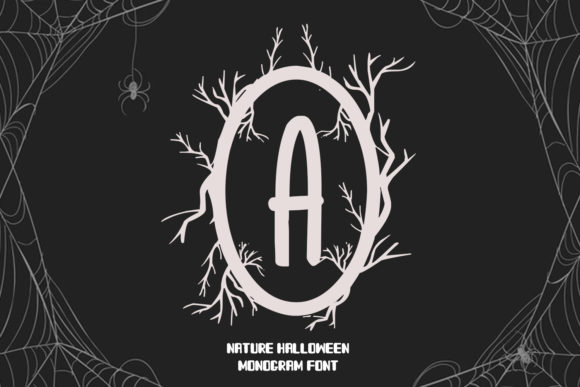
In the mystical realm of typography, where letters dance and words ignite the imagination, Nature Halloween Monogram Font emerges as a captivating masterpiece. A creation of Sketype Studio, this decorative font is an enchanting blend of the macabre and the whimsical, a perfect companion for your October designs, ready to cast a spellbinding aura over your creative endeavors.
With its intricate swirls and haunting charm, Nature Halloween Monogram Font is not just a collection of letters; it's a portal to a world of dark enchantment, where words transform into eerie whispers and messages take on an otherworldly allure. Its elegant curves and delicate flourishes evoke images of moonlit forests, where shadows dance and secrets are whispered on the wind.
This font is a true masterpiece, a testament to the artistry of its creators. Its impeccable craftsmanship and attention to detail shine through in every letterform, each stroke imbued with a sense of mystery and intrigue. Whether you're crafting invitations for a Halloween ball, designing posters for a haunted house, or simply adding a touch of spooky elegance to your digital creations, Nature Halloween Monogram Font will elevate your designs to new heights of enchantment.
More than just a font, Nature Halloween Monogram is an experience, a journey into the realm of the supernatural. It's a font that speaks to the soul, stirring emotions and capturing imaginations. With its haunting beauty and undeniable charm, it's the perfect choice for those who seek to add a touch of magic to their creative endeavors.